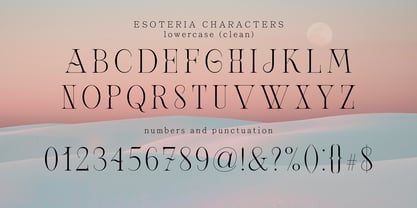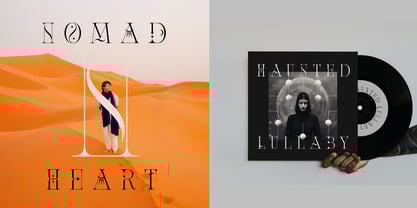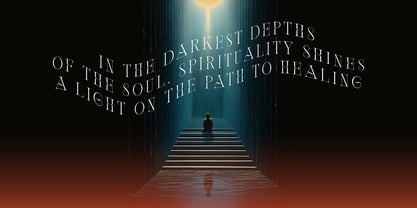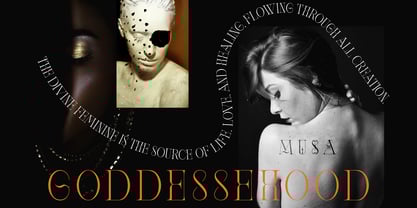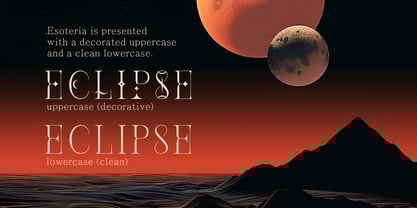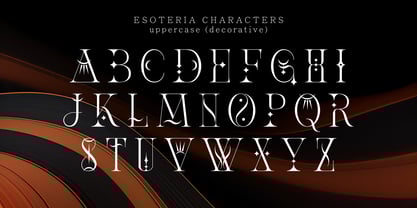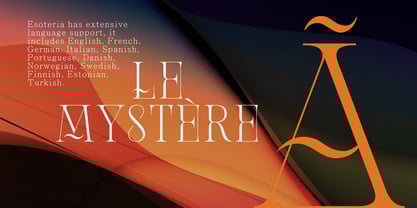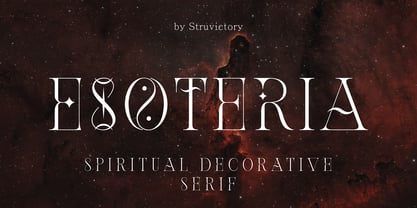
Esoteria Decorative
by Struvictory.art
The Esoteria Decorative Font Family was designed by Viktoryia Strukouskaya and published by Struvictory.art. Esoteria Decorative contains 1 styles. More about this family
Esoteria is a font that whispers secrets. Its modern design, crafted with classic proportions and quaint serifs, exudes elegance and refinement. Geometric flourishes add a touch of mystery and depth. Perfect for logos, invitations, book covers, spiritual quotes, posters, and anything that needs to convey a sense of intrigue, intellect, and style.
Esoteria is presented with a decorated uppercase and a clean lowercase. The font includes the most popular latin-based languages.